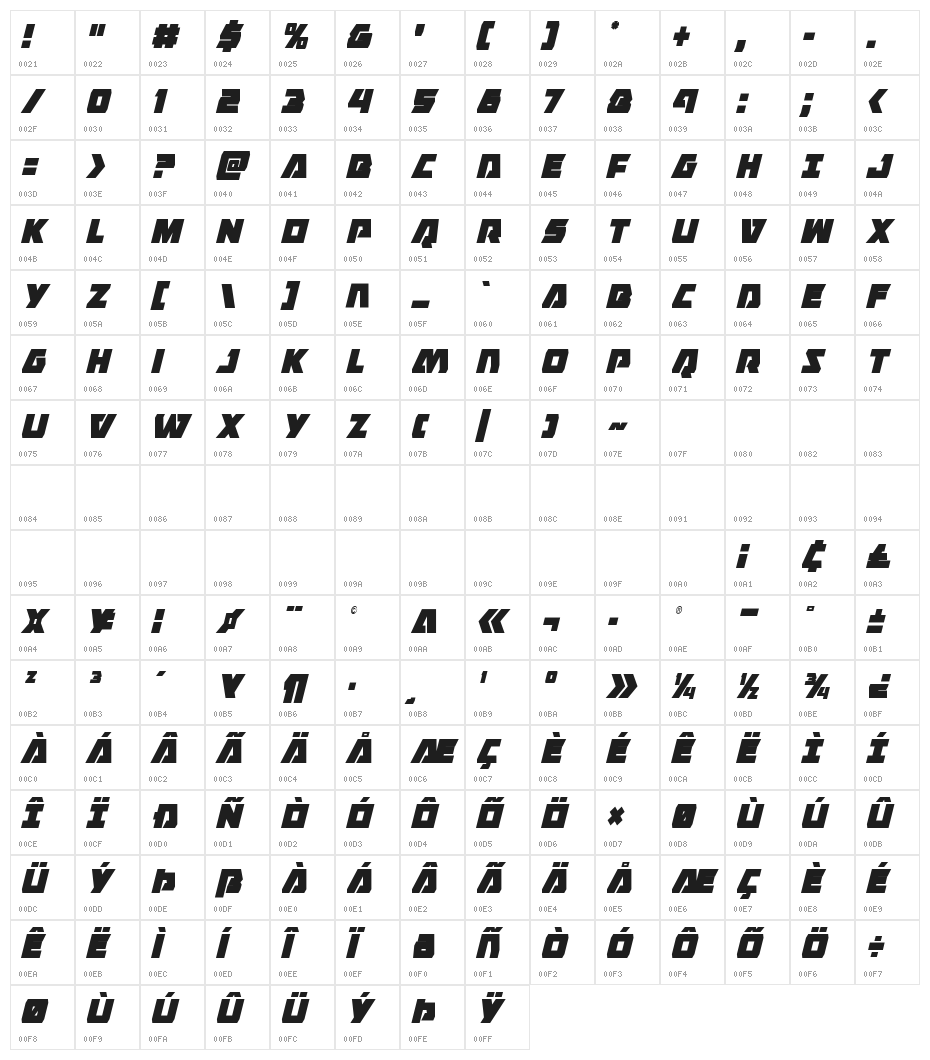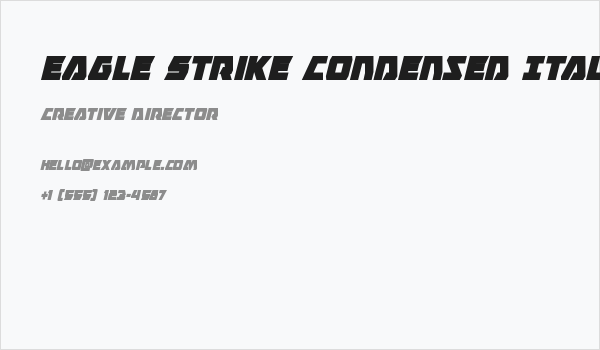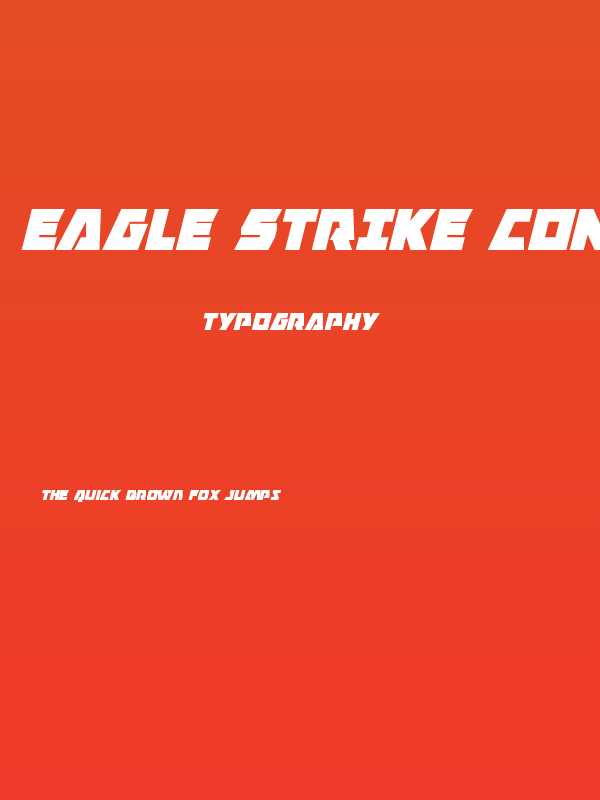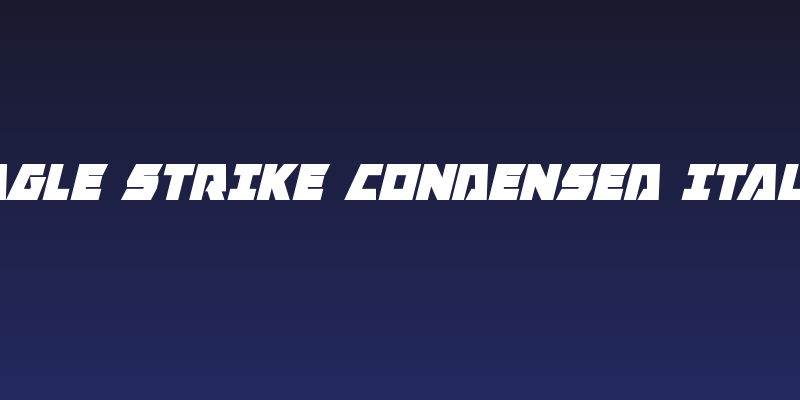
Eagle Strike Condensed Italic Font
Eagle Strike Condensed Italic Description
This font features a bold and dynamic design with a strong, angular structure. The condensed form gives it a compact appearance, while the italic slant adds a sense of motion and urgency. The sharp edges and geometric shapes create a futuristic and aggressive look, making it ideal for impactful designs. The uppercase letters are particularly striking, with a consistent height and width that enhance readability. The numerals and special characters maintain the same bold style, ensuring uniformity across all text elements.
| Proposed Projects | Ideal for sports branding, action movie posters, video game titles, and any project requiring a bold, energetic typeface. |